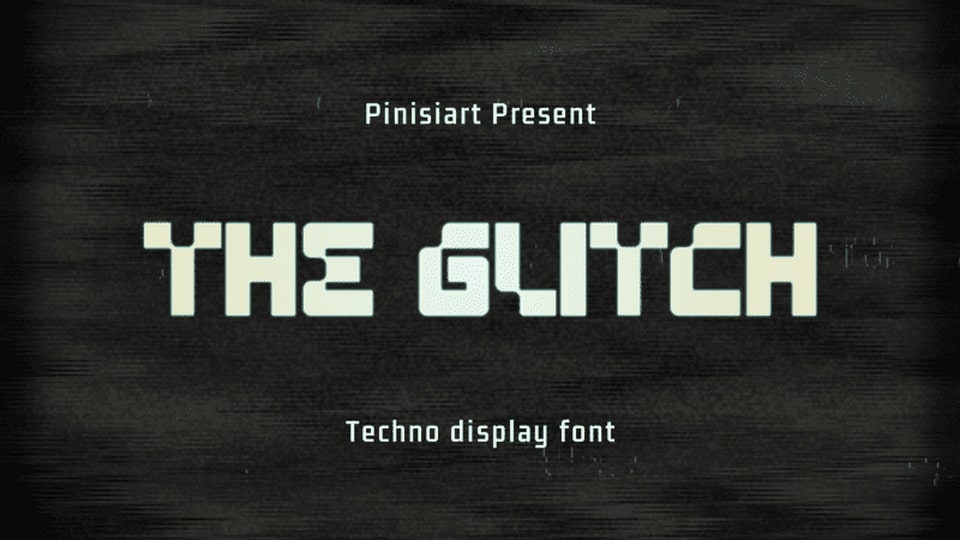
Download The Glitch font, a techno display typeface. The world of technology is what The Glitch is all about. It looks digitalized, it looks like being computerized.